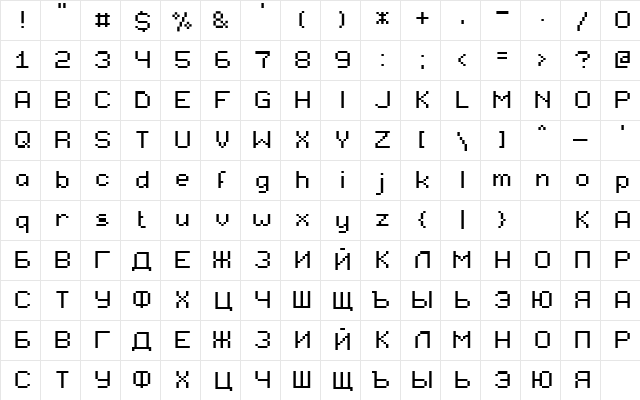
Complete Genx Institute Cyr Regular glyph index. Displaying only characters natively supported by Genx Institute Cyr Regular font.
Genx Institute Cyr is a composed and adaptable typeface that performs quietly and consistently across a wide range of design contexts.